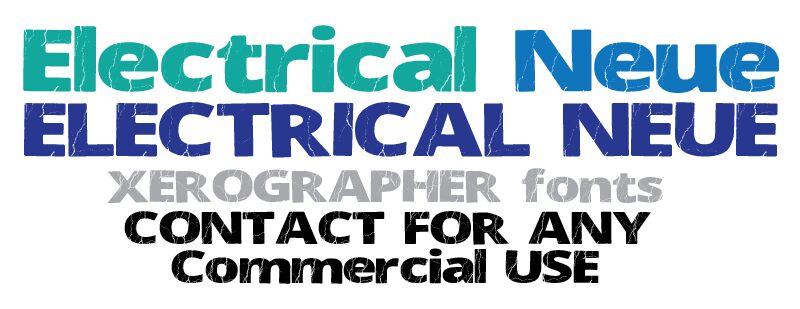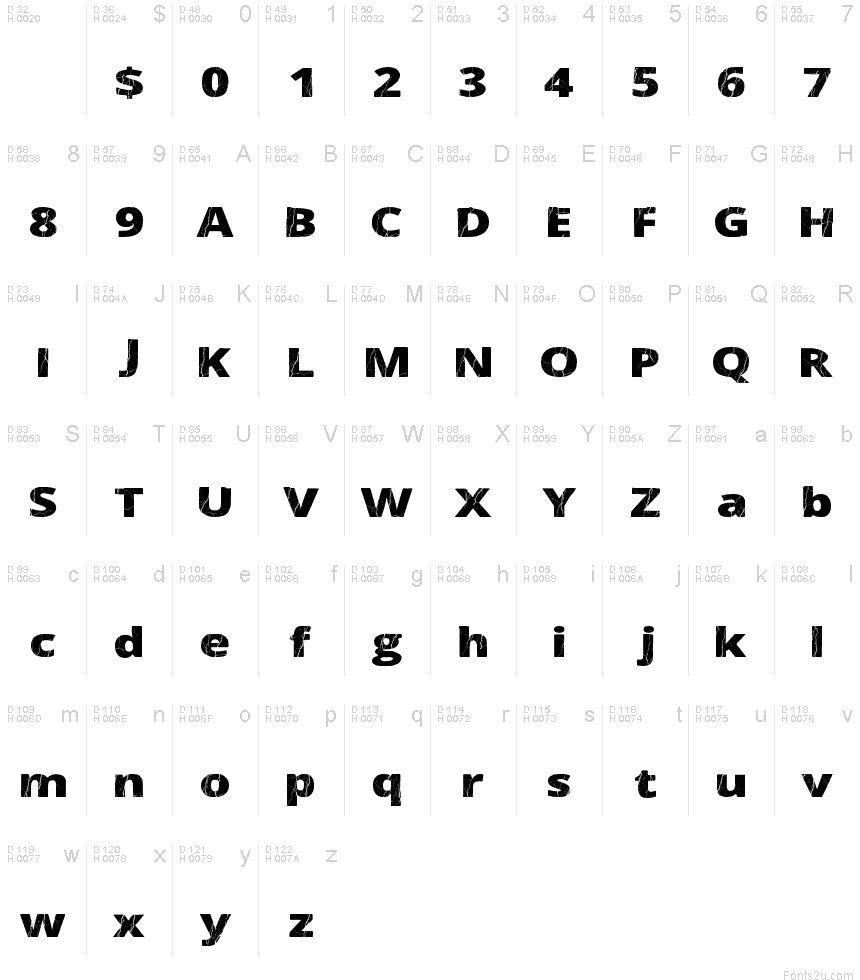
Electrical Neue by Xerographer Fonts is a free eroded display font with broad, weighty lettering and a fractured surface. The cracks spread in thin, branching lines, resembling crazed paint or stressed stone rather than broad chips. Rounded sections and blunt corners keep the dense forms compact, but the damage gives every letter a restless edge.
Concert posters and workshop packaging both benefit from its battered, forceful texture. On album covers and skate merchandise, the branching fissures can echo cracked concrete, distressed photography, or lightning-like artwork, making the words part of the image instead of a clean label simply placed directly over it.